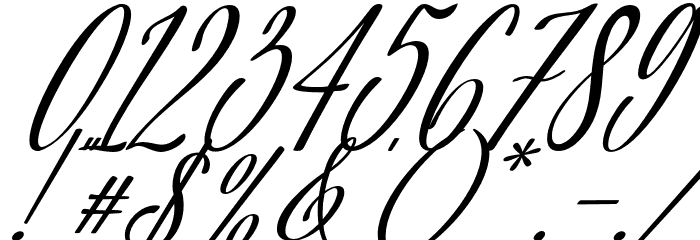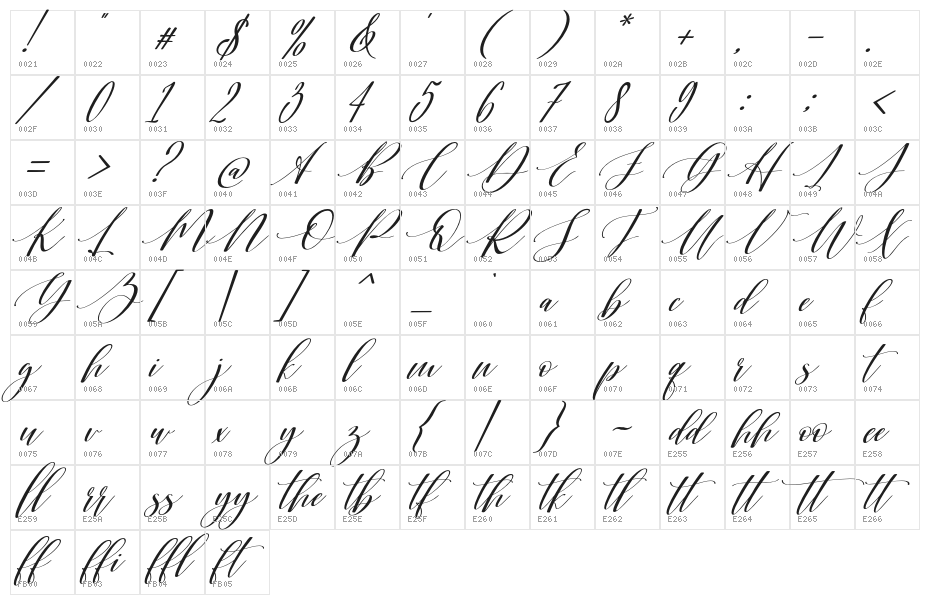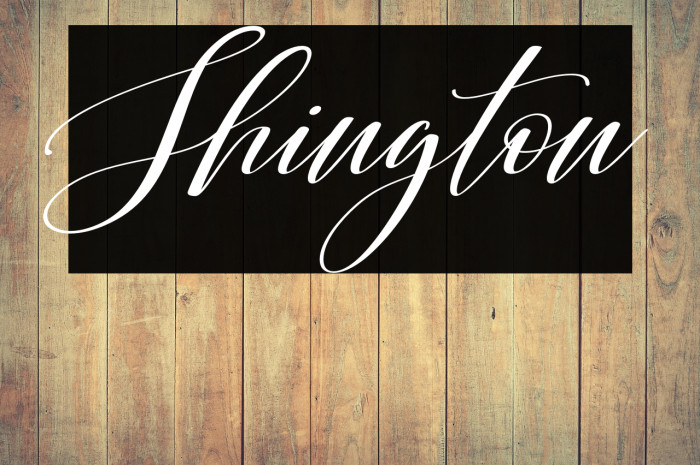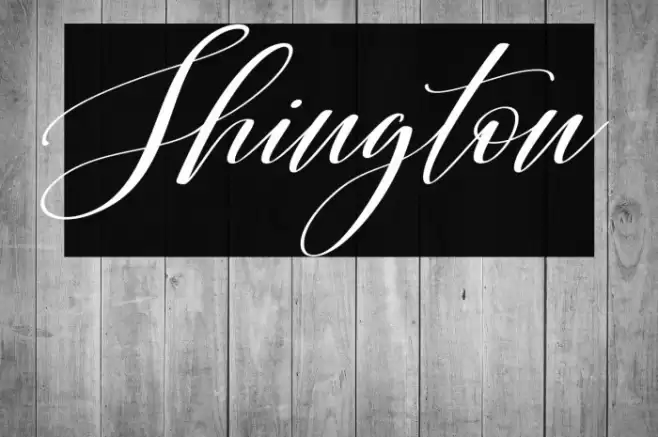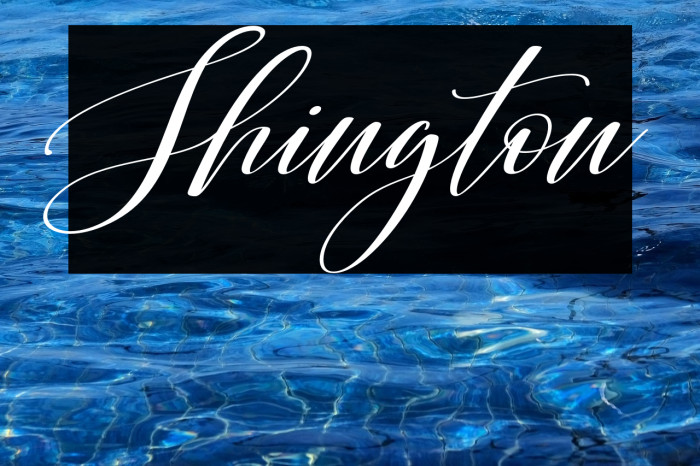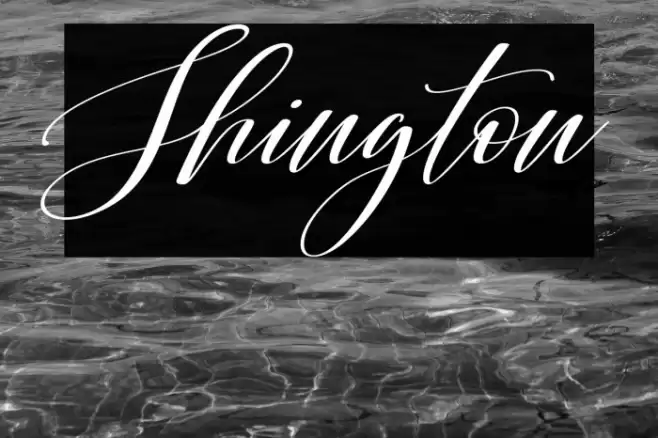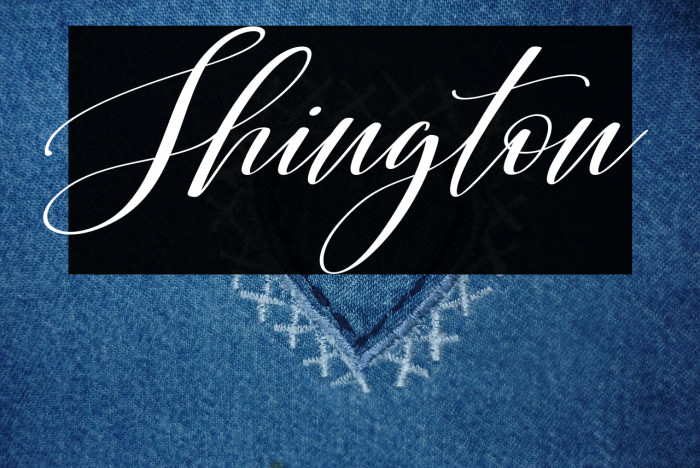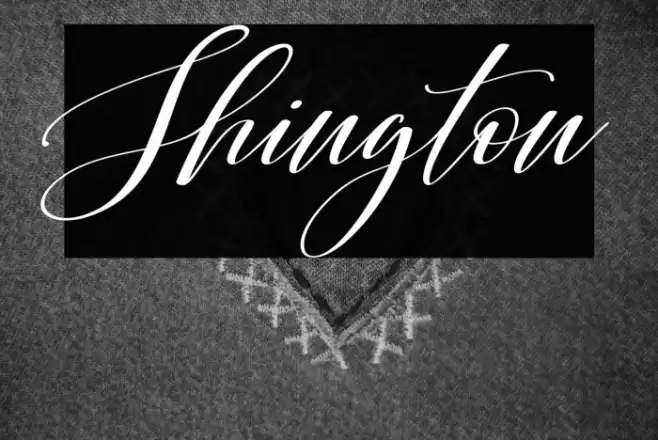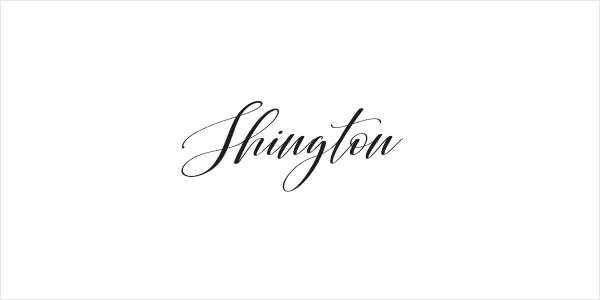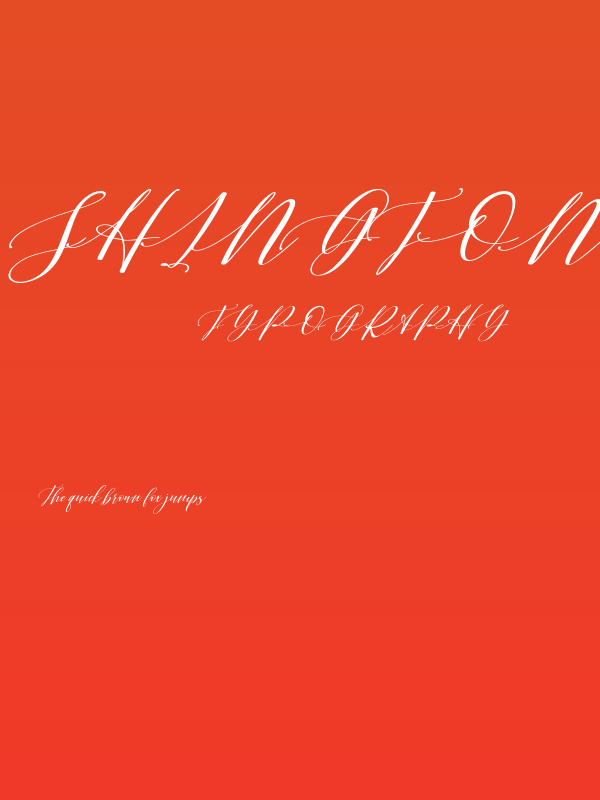
Shington Font
Shington Description
This elegant script font features a flowing, cursive style that exudes sophistication and grace. The uppercase letters are characterized by their sweeping loops and flourishes, while the lowercase letters maintain a consistent, fluid motion. The numerals and special characters are designed with the same attention to detail, ensuring a cohesive look throughout. The font's high contrast between thick and thin strokes adds to its dramatic appearance, making it ideal for formal invitations, branding, and other projects that require a touch of elegance.
| Proposed Projects | Ideal for wedding invitations, luxury branding, elegant packaging, and formal event programs. |